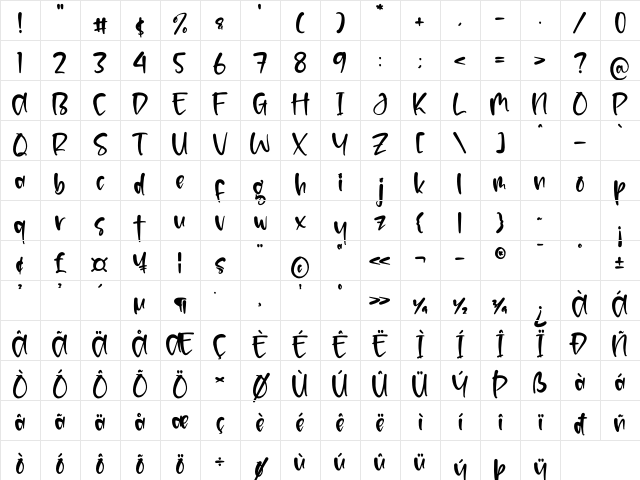
Complete Caitozar Regular glyph index. Displaying only characters natively supported by Caitozar Regular font.
Caitozar is a composed and adaptable typeface that performs quietly and consistently across a wide range of design contexts.